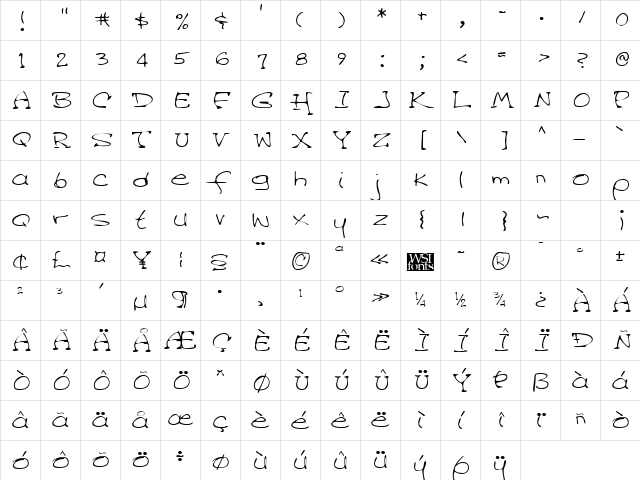
CandysHand Regular
Design Context for CandysHand Typeface
CandysHand brings a calligraphic fluidity to the page — its connecting strokes and expressive curves give it an unmistakably human quality.
Font Pairing: Combine CandysHand with a simple geometric sans for maximum contrast — the tension between flowing curves and clean structure is a classic typographic pairing.
Pro Tip: Pair CandysHand with a clean sans-serif for supporting text. The contrast between fluid script and geometric structure creates an elegant typographic hierarchy.